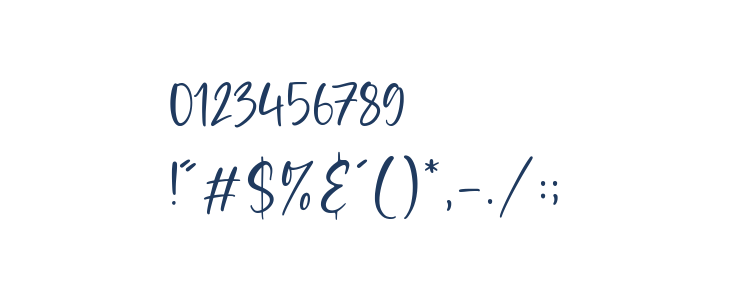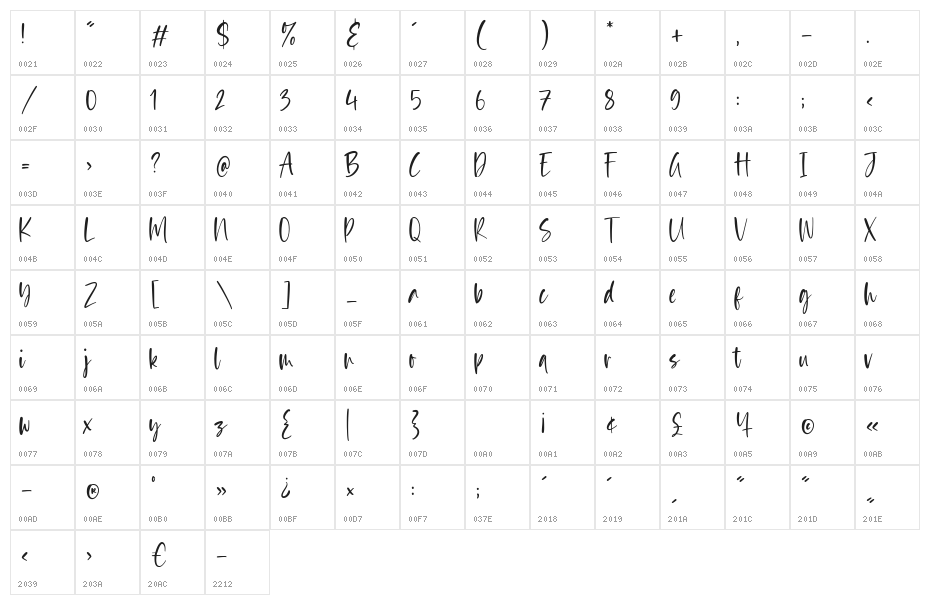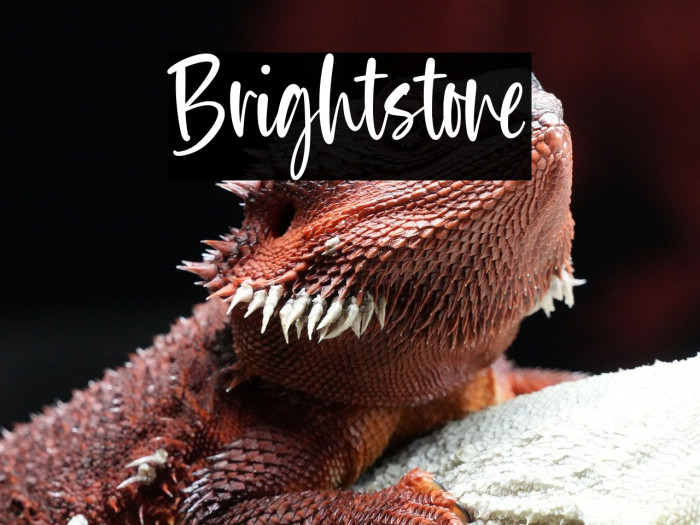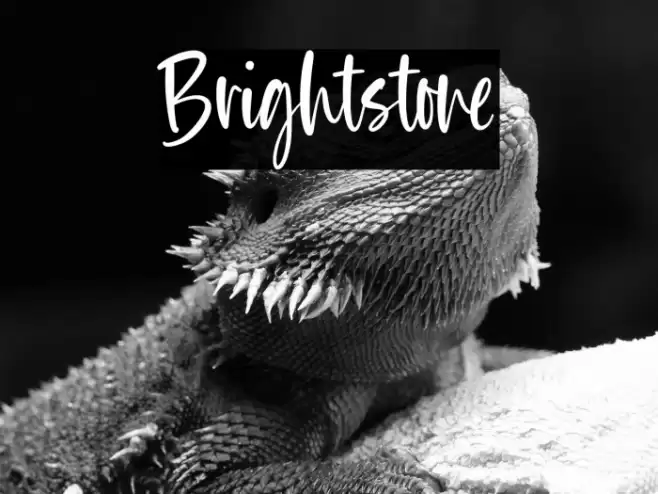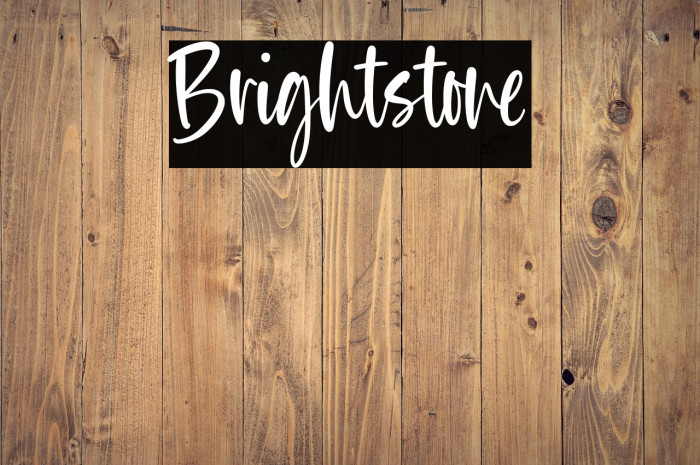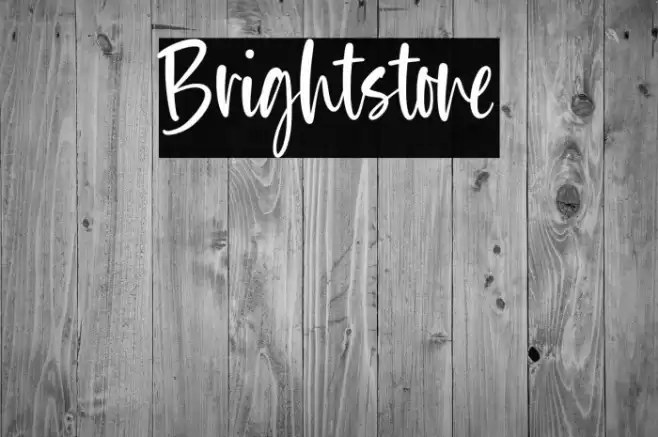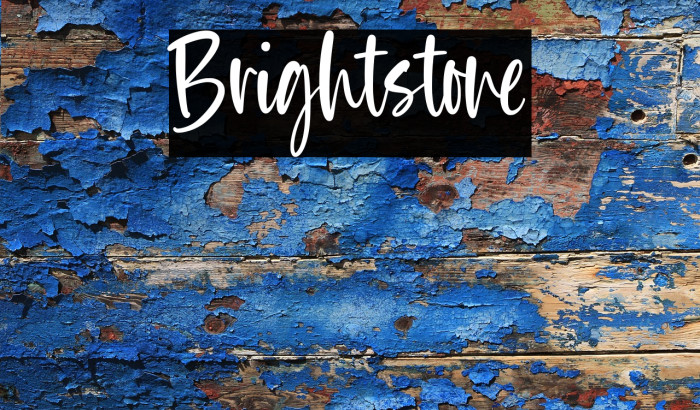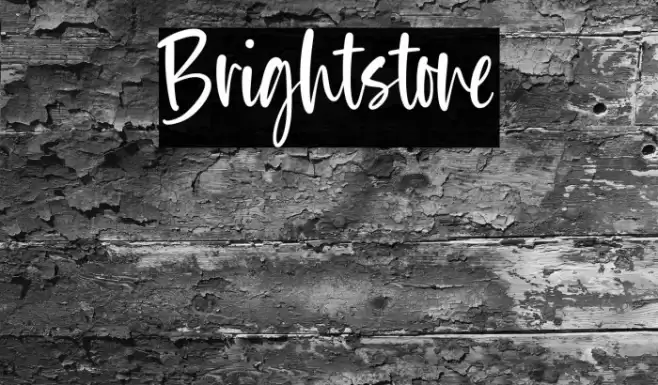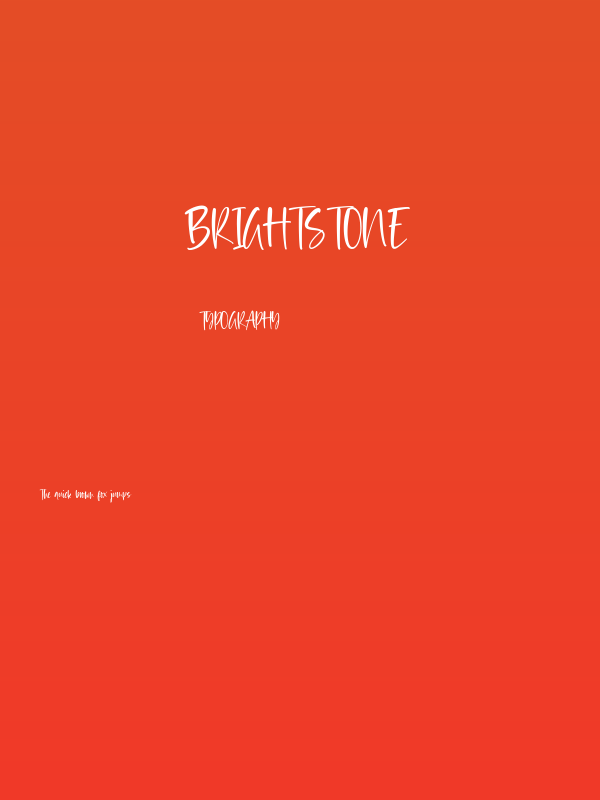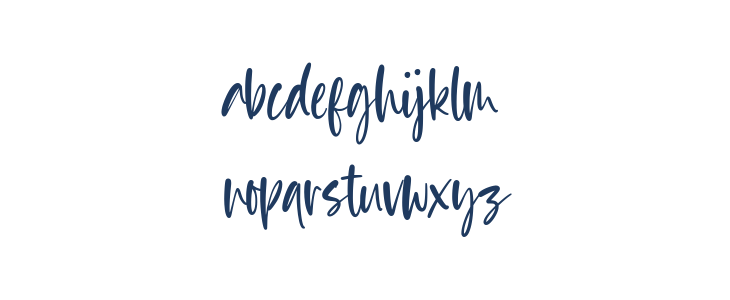
Brightstone Font
Brightstone Description
This font features a lively and energetic handwritten style, characterized by its flowing and slightly irregular letterforms. The uppercase letters are bold and dynamic, with a playful yet sophisticated appearance. The lowercase letters maintain a consistent rhythm, adding to the font's overall charm. Numbers and special characters are crafted with the same attention to detail, ensuring versatility across various applications. The strokes are smooth and fluid, giving the font a natural and organic feel. This font is ideal for projects that require a personal touch, such as invitations, greeting cards, or branding materials. Its unique style makes it stand out while remaining legible and functional.
| Proposed Projects | Ideal for invitations, greeting cards, branding materials, and any project needing a personal touch. |